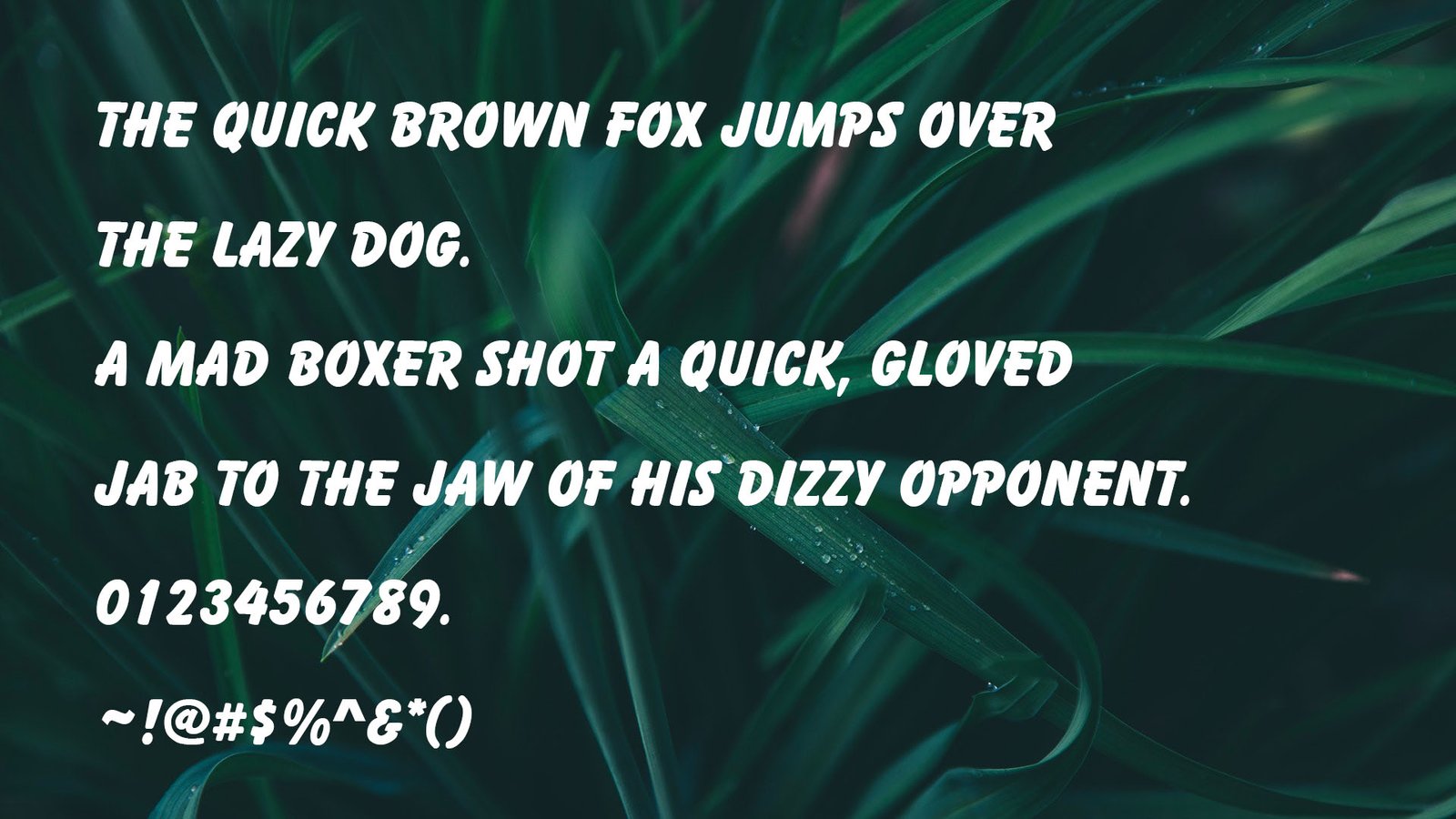
In today’s post, we would like to share with you a very elegant typeface that has a stylish texture and appearance called Balloon Font.
This font look is very clean and easy to understand for the reader. This font is designed by notable graphic designer Max R. Kaufmann and it is very famous in the font industry.
Balloon Font Family
This typeface belongs to the Script font family. This font is published under the banner of the American Type foundry. The released year of this font is 1939.